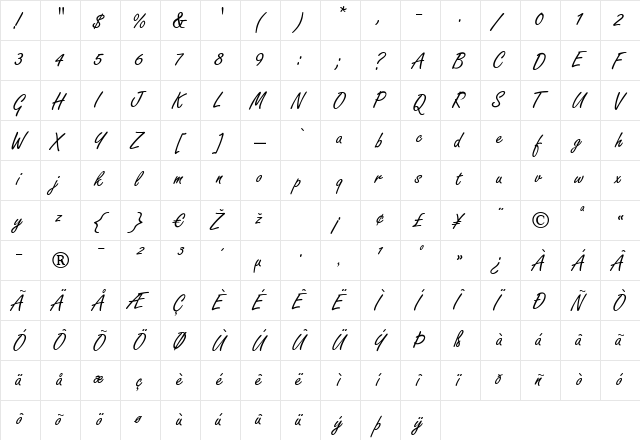
FreestyleScript LT Regular
Design Context for FreestyleScript LT Typeface
FreestyleScript LT brings a calligraphic fluidity to the page — its connecting strokes and expressive curves give it an unmistakably human quality. The delicate stroke weight brings airiness and refinement to layouts.
Font Pairing: Combine FreestyleScript LT with a simple geometric sans for maximum contrast — the tension between flowing curves and clean structure is a classic typographic pairing.
Pro Tip: Use FreestyleScript LT for short runs of text — names, titles, or taglines. Extended body copy in script faces tires the eye quickly.